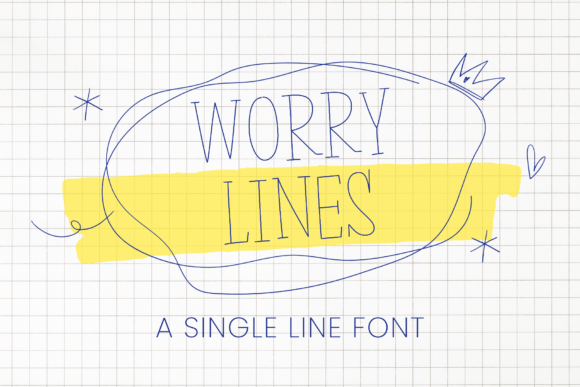
Introducing the Worry Line Font, the ultimate choice for those seeking the best font for Cricut Vinyl! Created by the talented team at Single Line Studio, this minimal and neat serif font is here to elevate your design game. With its captivating simplicity and endless versatility, Worry Line is sure to become your go-to font for all your creative endeavors.
Imagine a font that effortlessly adds a touch of elegance and sophistication to any project. Worry Line does just that and more. Its clean and refined appearance is guaranteed to grab attention and leave a lasting impression on your audience. Whether you're crafting invitations, designing logos, or creating stunning graphics, this font will make your work stand out from the crowd.
But what truly sets Worry Line apart is its ability to adapt to a wide range of projects. From wedding stationery to branding materials, this font seamlessly fits into any design concept. Its timeless and classic nature makes it suitable for both formal and casual occasions. Let your imagination run wild as you explore the endless possibilities of this remarkable font.
Not only does Worry Line offer visual appeal, but it also provides a seamless user experience. Its single-line structure ensures smooth cutting and flawless results when used with Cricut Vinyl. Say goodbye to frustrating glitches and hello to a hassle-free design process. With Worry Line, you can focus on unleashing your creativity without any technical obstacles.
We understand that finding the perfect font can be a daunting task. That's why Worry Line was meticulously designed to meet the needs of every creative individual. Its extensive character set allows for effortless customization, enabling you to express your unique style and personality. Whether you're aiming for a bold statement or a delicate touch, this font has got you covered.
Choosing Worry Line means joining a community of passionate designers who appreciate the beauty of simplicity. Stand out from the crowd and let your creations speak volumes with this captivating font. It's time to take your designs to new heights and leave a lasting impact on your audience.